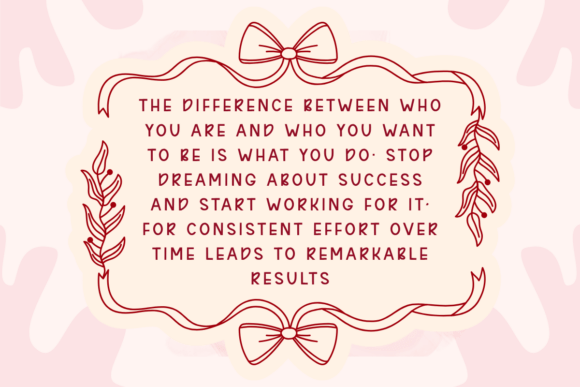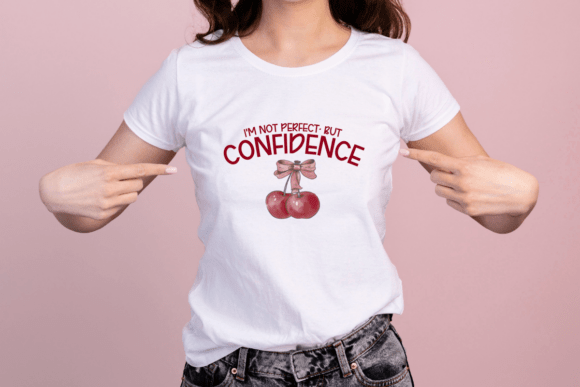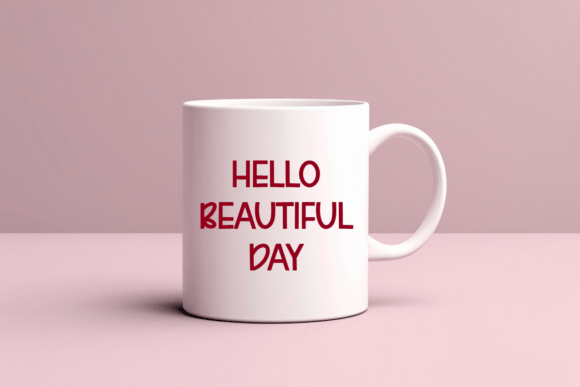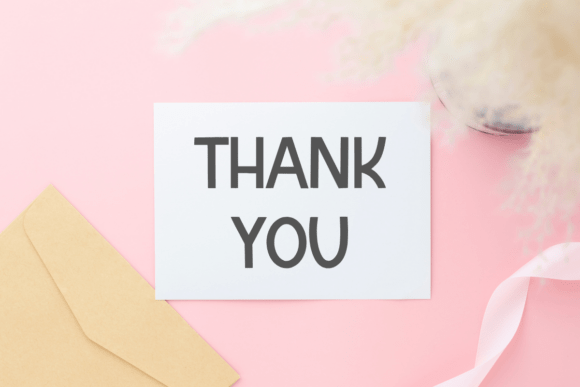
Introduction to Preppy Cherry Font
Preppy Cherry is a cool handwriting font with cute aesthetic natural vibes.
Perfect for cricut, planner, mug, sticker, journal, invitation, greeting card, kdp, scrapbooking, crafting, tote bag, quotes, keychain, notes and more This font brings a playful and cute look to your designs.